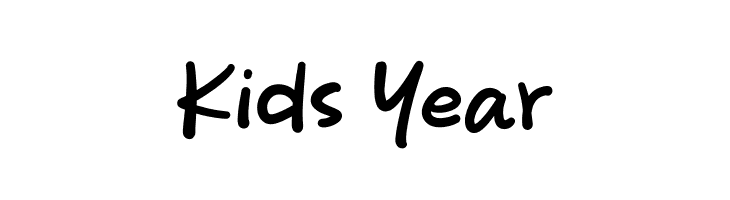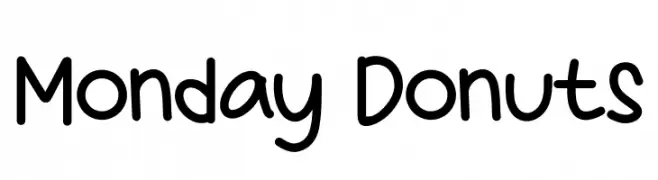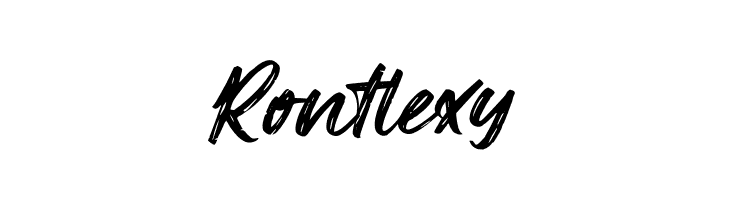
A playful, handwritten font with rounded edges and a casual, friendly style.
A playful, hand-drawn font with tall, narrow letters and a whimsical style.
A bold, brush-style font with dynamic, expressive strokes.
A bold, brush-stroke font with an aggressive, hand-drawn aesthetic.
A bold, brushstroke-style font with dynamic and edgy characteristics.
A playful, casual handwritten font with smooth, flowing lines.
A bold, brush-style font with dynamic, hand-painted strokes.
A bold, cursive font with smooth, flowing lines and a lively, energetic style.
A playful, handwritten-style font with a friendly and informal appearance.
A bold, energetic script font with a hand-drawn feel and dynamic strokes.